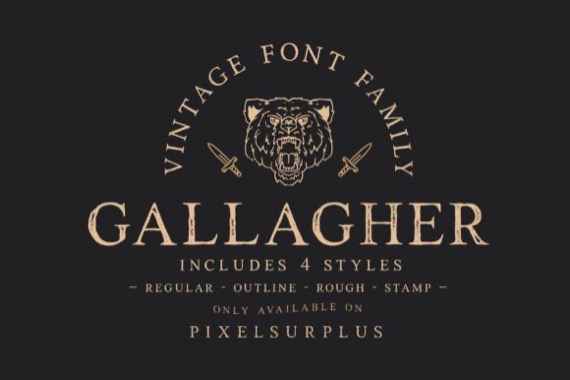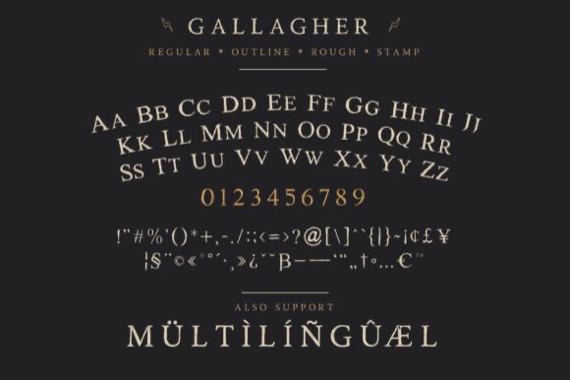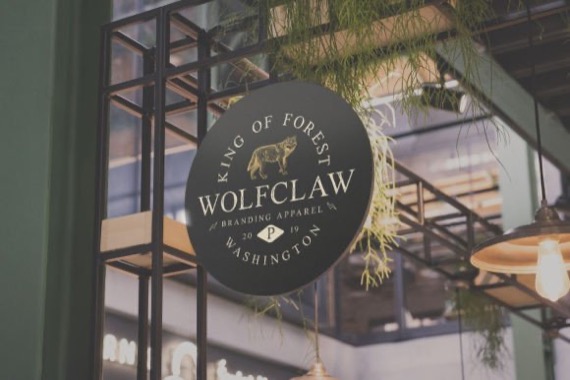
Gallagher is an interesting and delicate serif font that was created and released by Surplus Type Co.. It’s available in 4 styles – Regular, Rough, Stamp & Outline. That makes Gallagher perfect for any vintage or industrial project as you can combine styles as needed. All fonts feature large & small caps plus multilingual characters.
Gallagher Serif Font